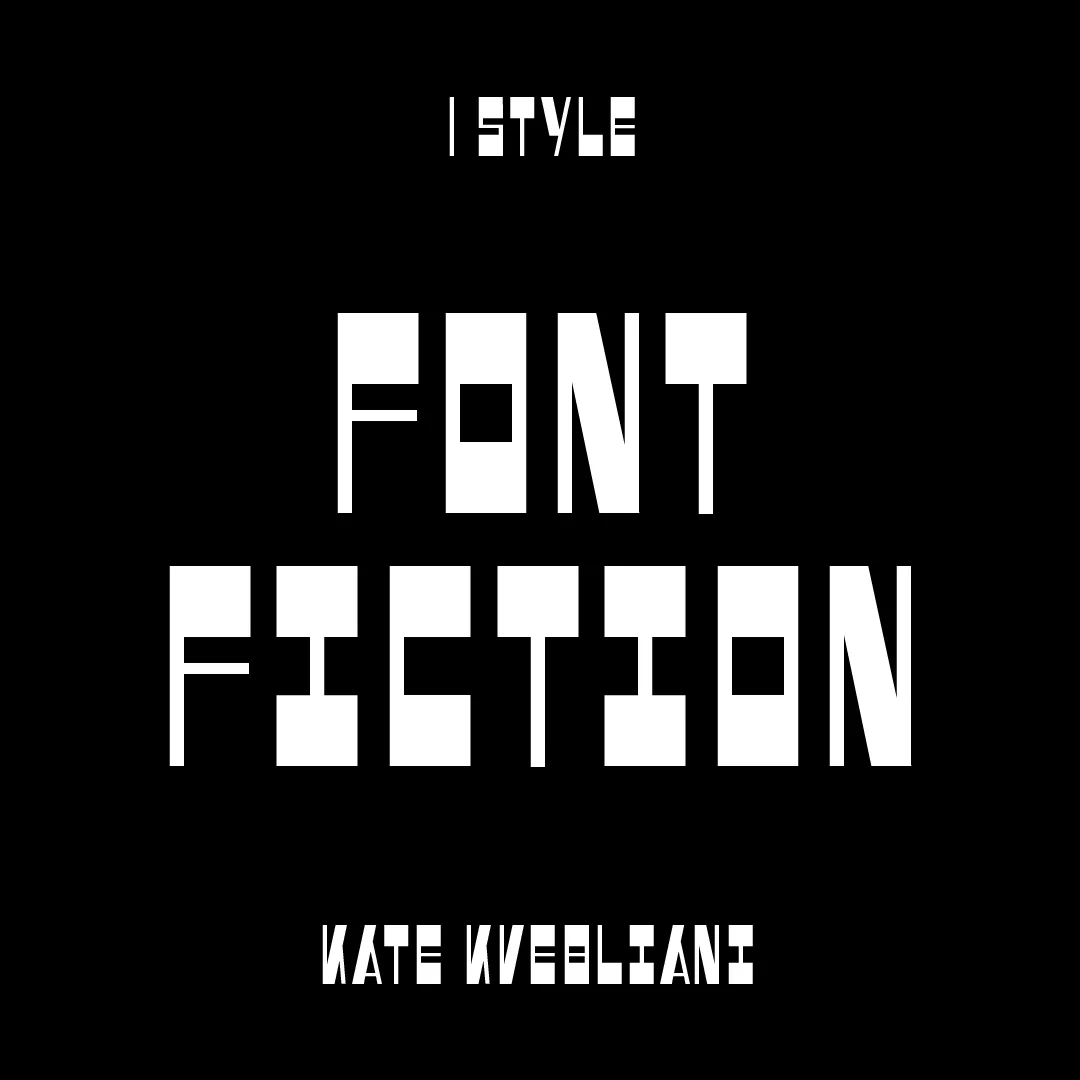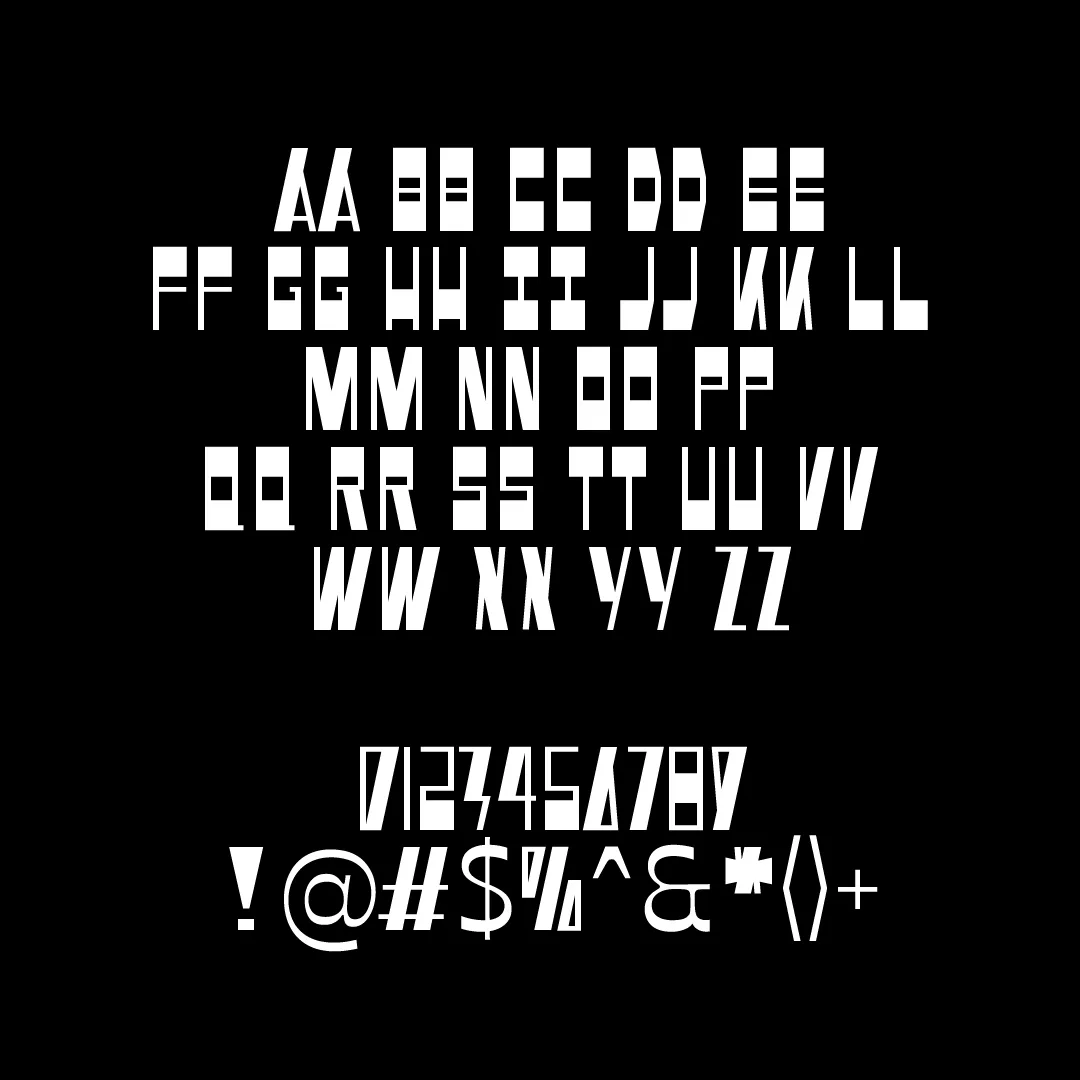
Font Fiction
The free display font Font Fiction was inspired by Quentin Tarantino’s posters and films.
- Designer: Kate Kvebliani
The free display font Font Fiction was inspired by Quentin Tarantino’s posters and films.